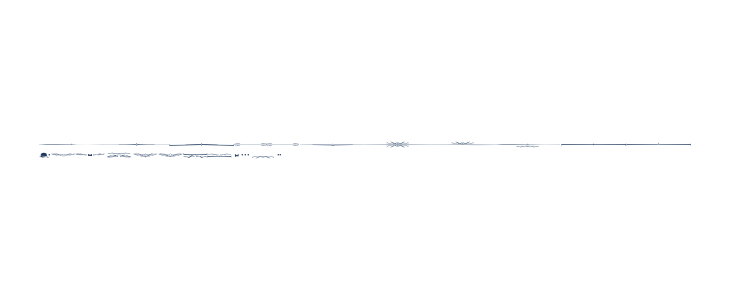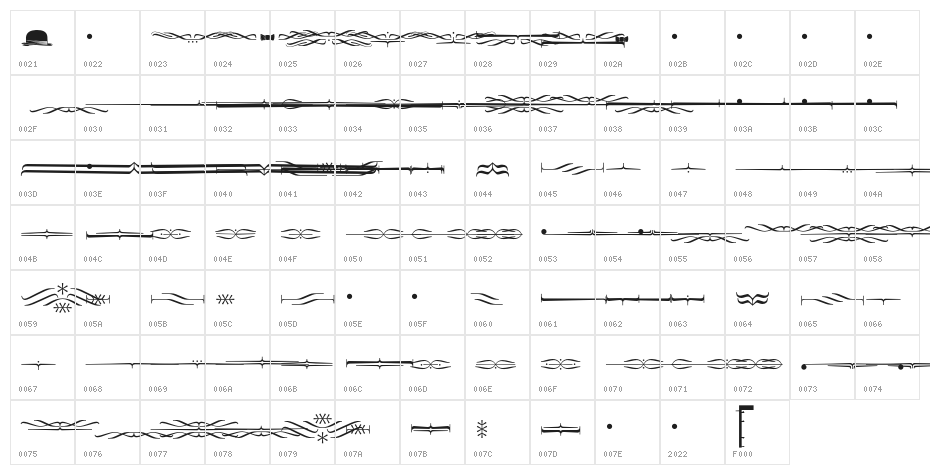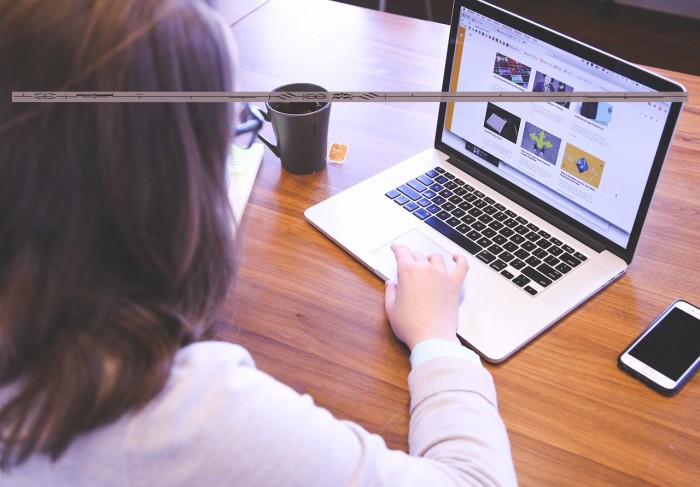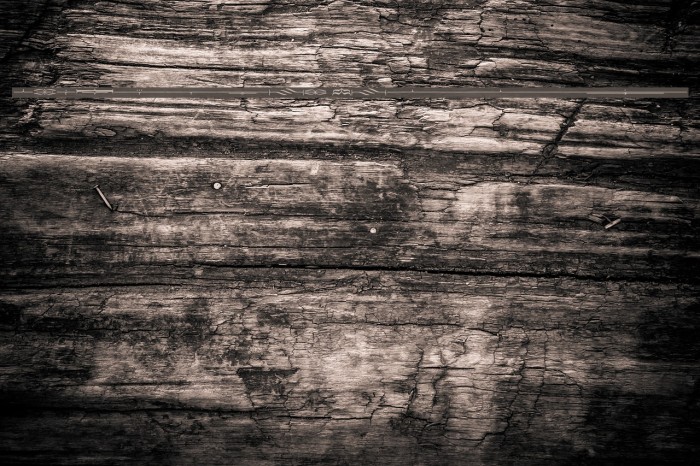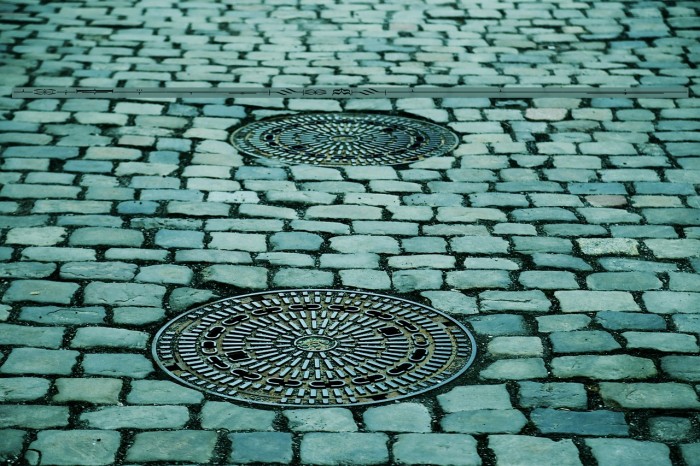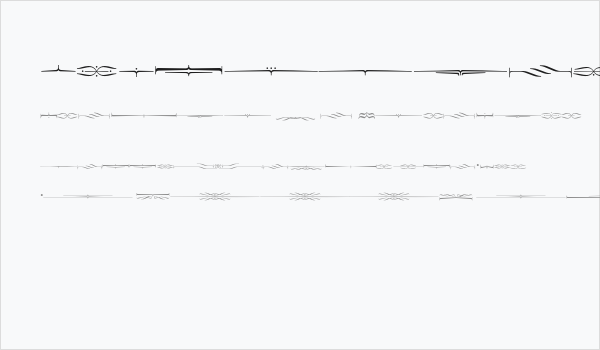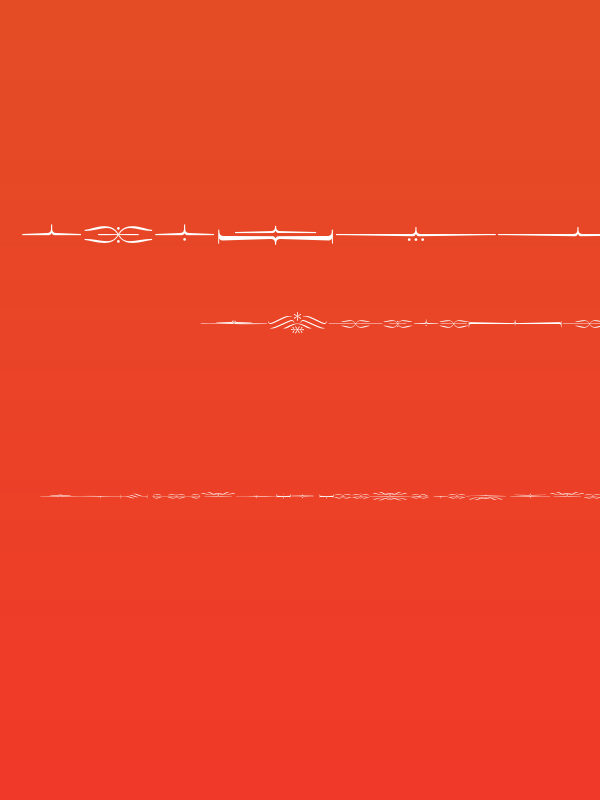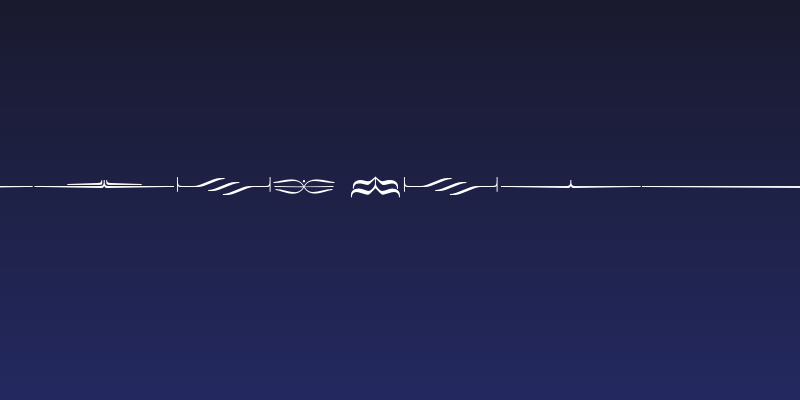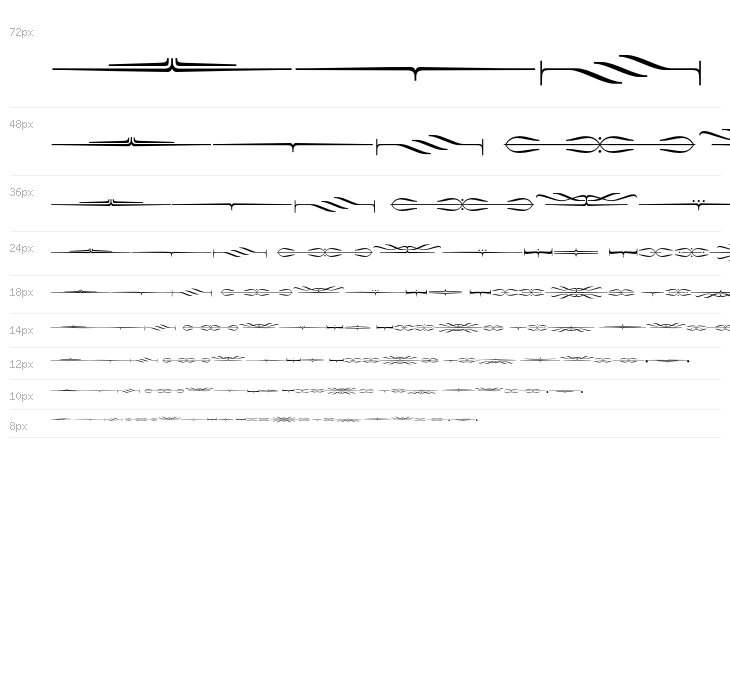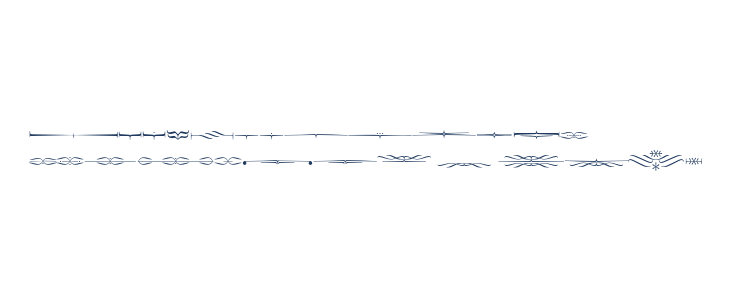
Foglihten DeH04 Font
Foglihten DeH04 Description
This is not a valid font. The image appears to contain decorative lines and ornaments rather than a standard set of alphanumeric characters and symbols typically found in a font.